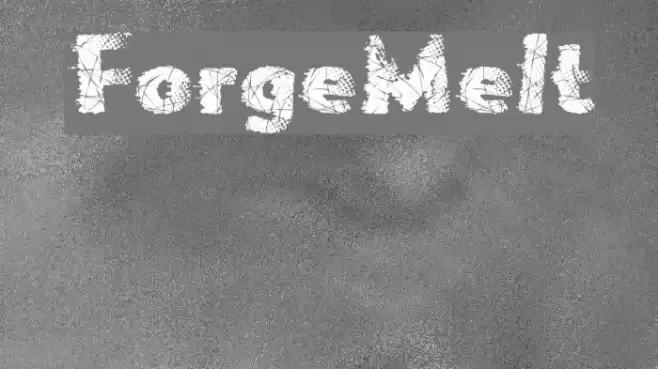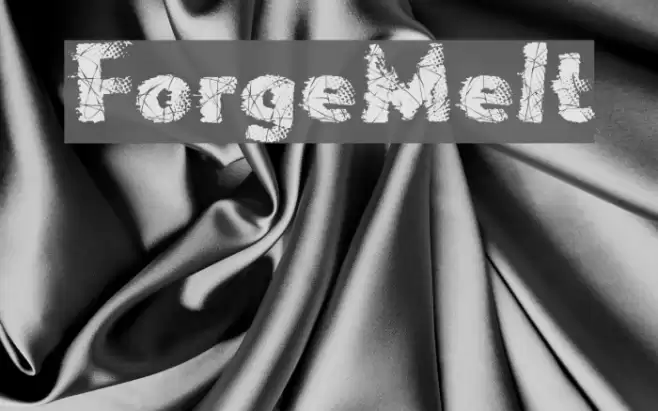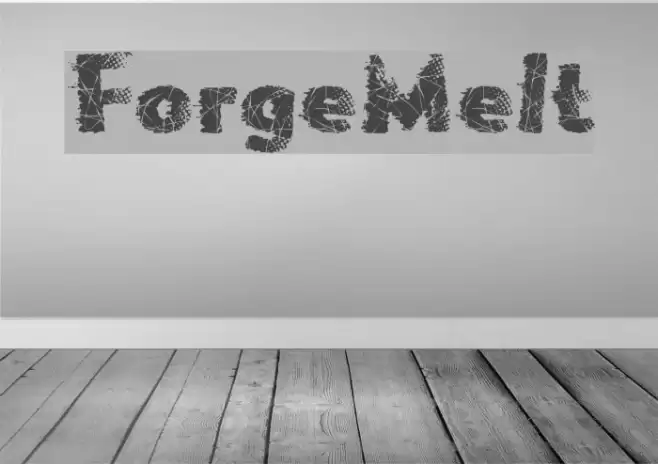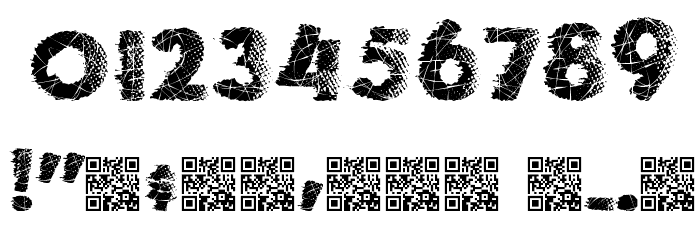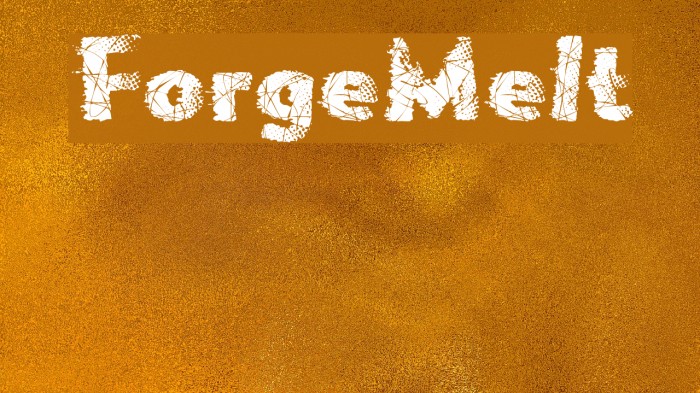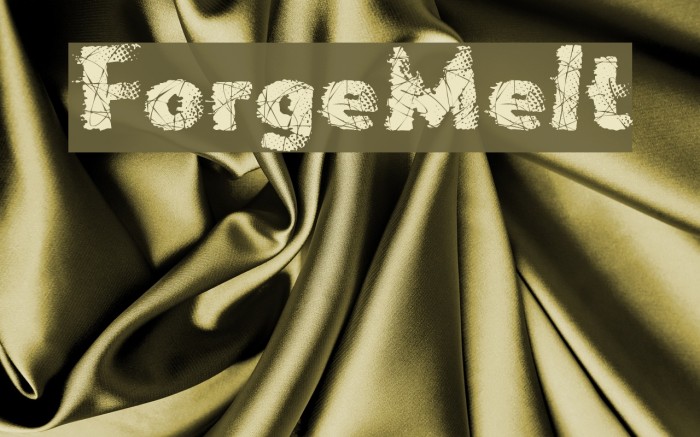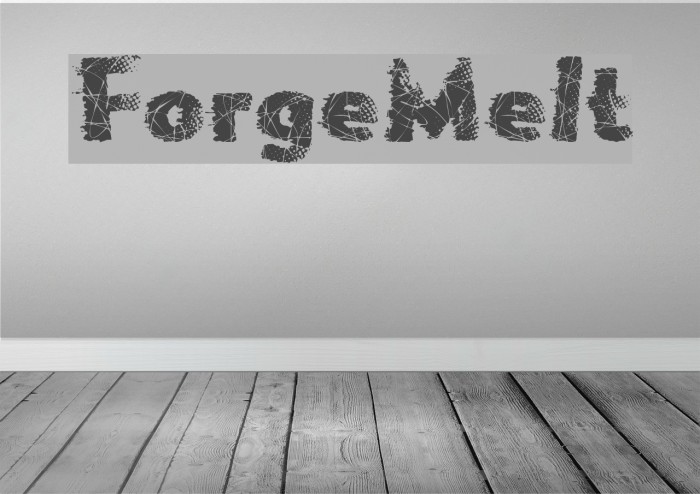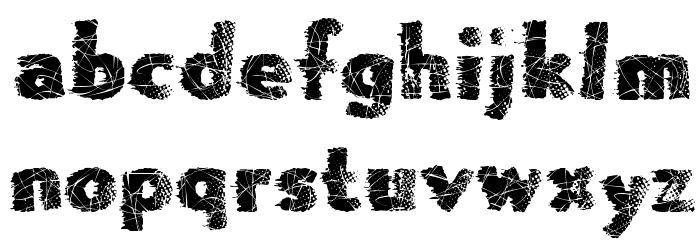
ForgeMelt Font
ForgeMelt Description
This font features a bold, distressed style with a unique, fragmented texture that gives each character a rugged and dynamic appearance. The letters are composed of irregular, jagged shapes that create a sense of movement and energy, making it ideal for projects that require a bold statement. The uppercase and lowercase letters maintain a consistent style, with numbers and special characters following the same design principles. The overall look is both modern and edgy, suitable for creative and artistic applications.
A bold, distressed font with a fragmented, dynamic texture.
- Proposed Projects: Ideal for posters, album covers, branding for edgy products, and artistic projects.
- Overall Style: Modern, Edgy